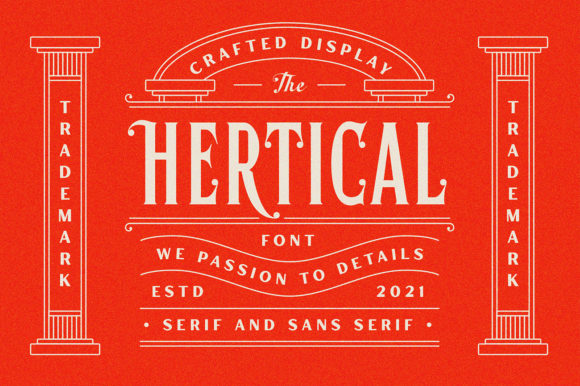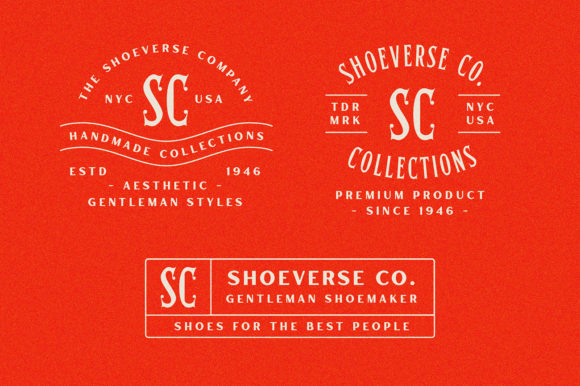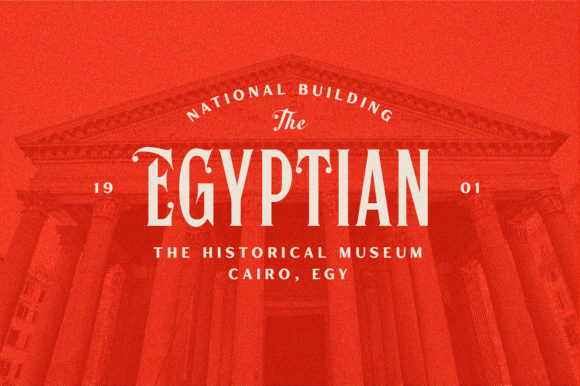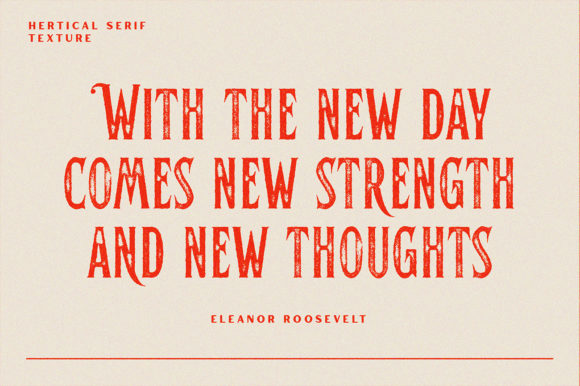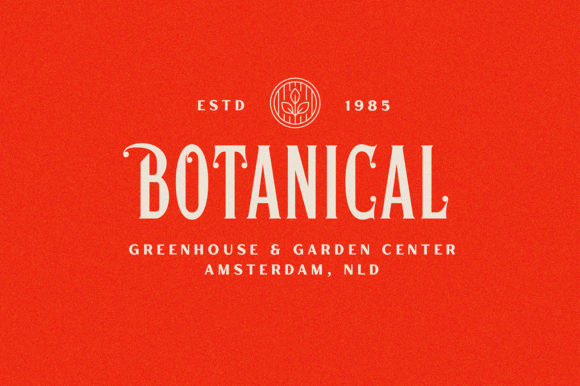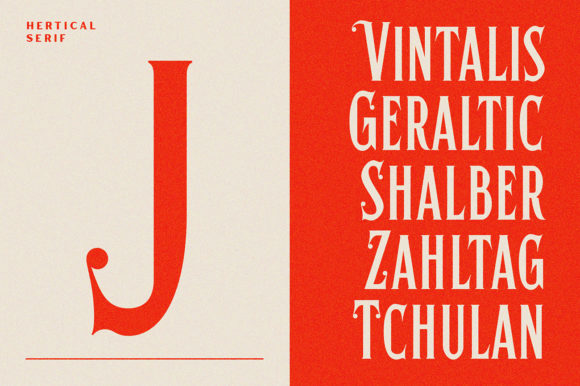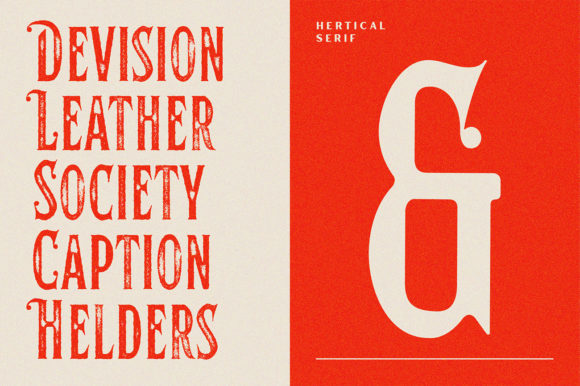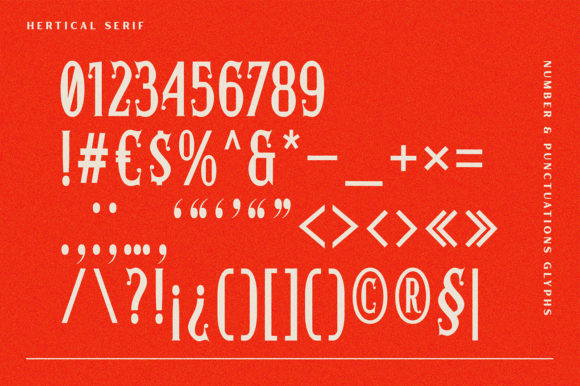
Hertical Font
Make your designs stand out with Hertical, a stylish and unique font family. It will look stunning on posters, thank you cards, quotes, greeting cards, logos, business cards and every other design which needs a creative touch.